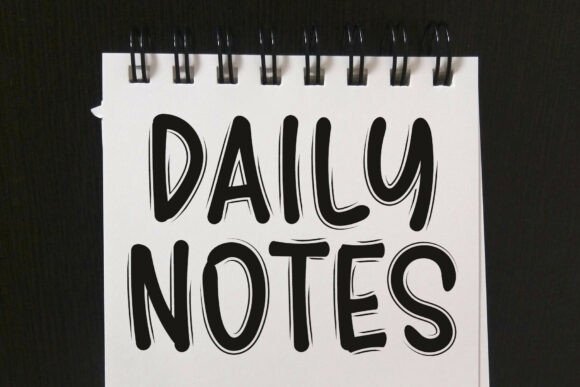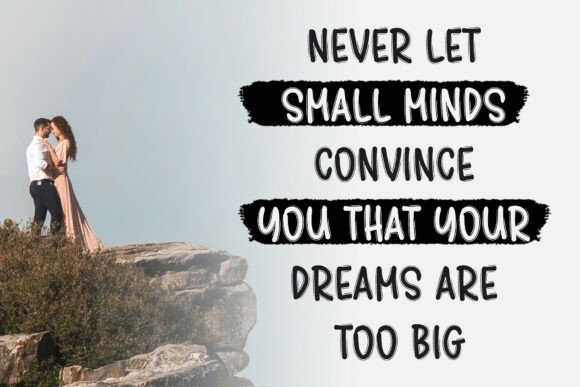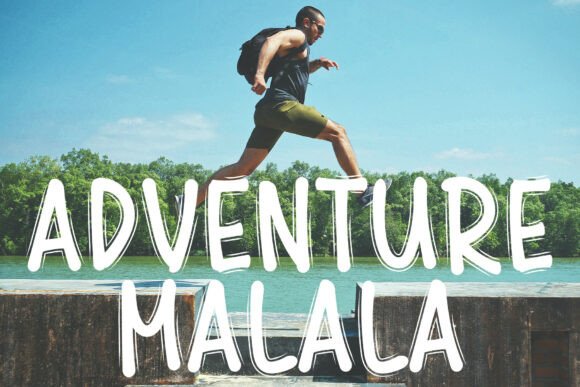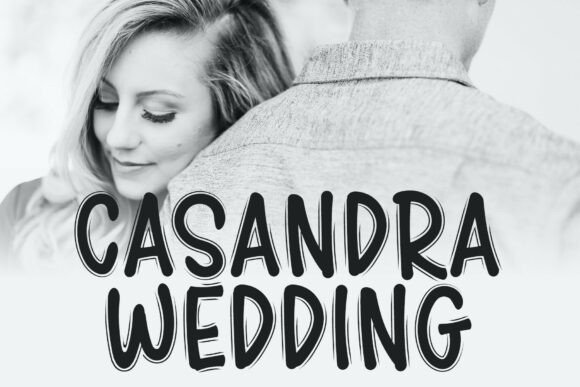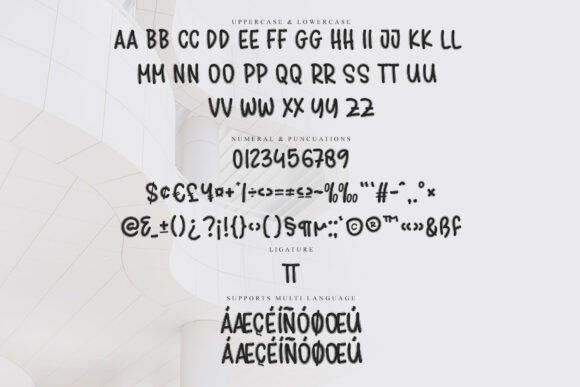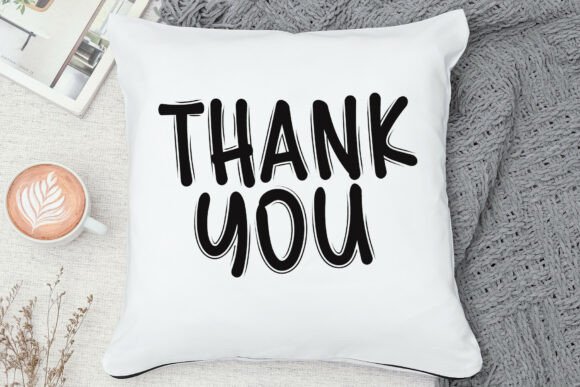
Aurora Alphabet Font: Elevate Your Designs with Elegance and Artistry
In the world of typography, fonts play a crucial role in conveying the tone and personality of a design. For designers and crafters looking to add a touch of sophistication and modernity to their projects, the Aurora Alphabet Font is an exceptional choice. This beautifully crafted display handwriting font seamlessly blends elegance with a contemporary, artistic flair, making it perfect for those who want to make a statement.
The Essence of Aurora Alphabet Font
Aurora Alphabet Font is characterized by its flowing strokes and well-balanced curves, which create a refined yet approachable feel. The font’s design is a masterful blend of classic elegance and modern artistry, making it versatile enough to be used in a wide range of design applications. Whether you’re working on a branding project, a wedding invitation, or a digital display, Aurora Alphabet Font is sure to leave a lasting impression.
Key Features of Aurora Alphabet Font
- Elegant and Modern Design: The font’s sophisticated design makes it perfect for projects that require a touch of luxury and refinement.
- Flowing Strokes and Balanced Curves: The font’s flowing strokes and well-balanced curves create a beautiful, harmonious look that is both elegant and approachable.
- Versatile and Adaptable: Aurora Alphabet Font can be used in a variety of design applications, from digital displays to print materials.
- Easy to Read and Understand: Despite its elegant design, the font remains highly legible, making it perfect for use in body text and captions.
Uses of Aurora Alphabet Font
Aurora Alphabet Font is an incredibly versatile font that can be used in a wide range of design applications. Here are some ideas to get you started:
- Branding and Logo Design: Use Aurora Alphabet Font to create a sophisticated and memorable brand identity.
- Wedding Invitations and Stationery: Add a touch of elegance and romance to your wedding invitations and stationery with this beautiful font.
- Digital Displays and Advertising: Use Aurora Alphabet Font to create eye-catching digital displays and advertisements that grab attention.
- Packaging and Product Design: Add a touch of luxury and sophistication to your product packaging with this elegant font.
Tips for Using Aurora Alphabet Font
To get the most out of Aurora Alphabet Font, here are some tips to keep in mind:
- Use it as a Display Font: Aurora Alphabet Font is perfect for use as a display font, where its elegant design can be showcased.
- Pair it with a Simple Font: Pair Aurora Alphabet Font with a simple, sans-serif font to create a beautiful contrast.
- Experiment with Colors and Textures: Don’t be afraid to experiment with different colors and textures to add depth and interest to your design.
Aurora Alphabet Font is a stunning display handwriting font that is sure to elevate your designs with its elegance and modernity. With its flowing strokes, well-balanced curves, and sophisticated design, this font is perfect for designers and crafters looking to add a touch of class and personality to their projects. Whether you’re working on a branding project, a wedding invitation, or a digital display, Aurora Alphabet Font is an exceptional choice.